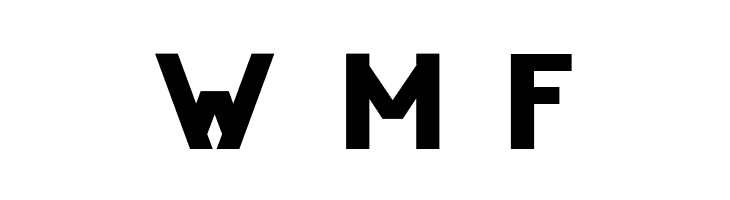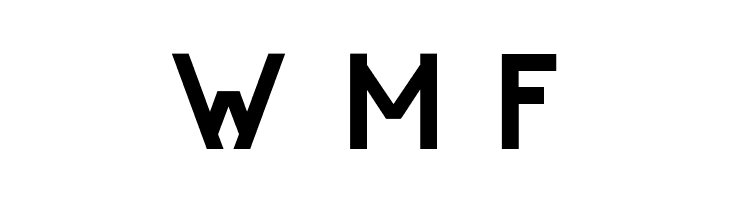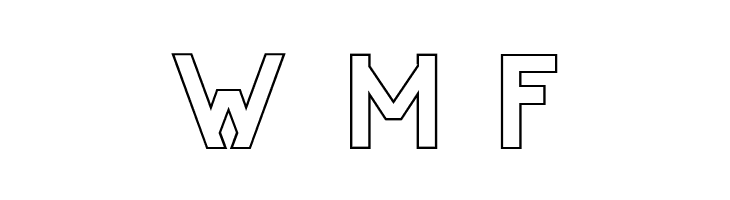
Brassett_Bold Font
A bold, geometric font with sharp, angular lines and a modern aesthetic.
Brassett Font
A bold, angular font with a modern, geometric style.
Brassett_Outline Font
A bold, geometric outline font with sharp angles and clean lines.